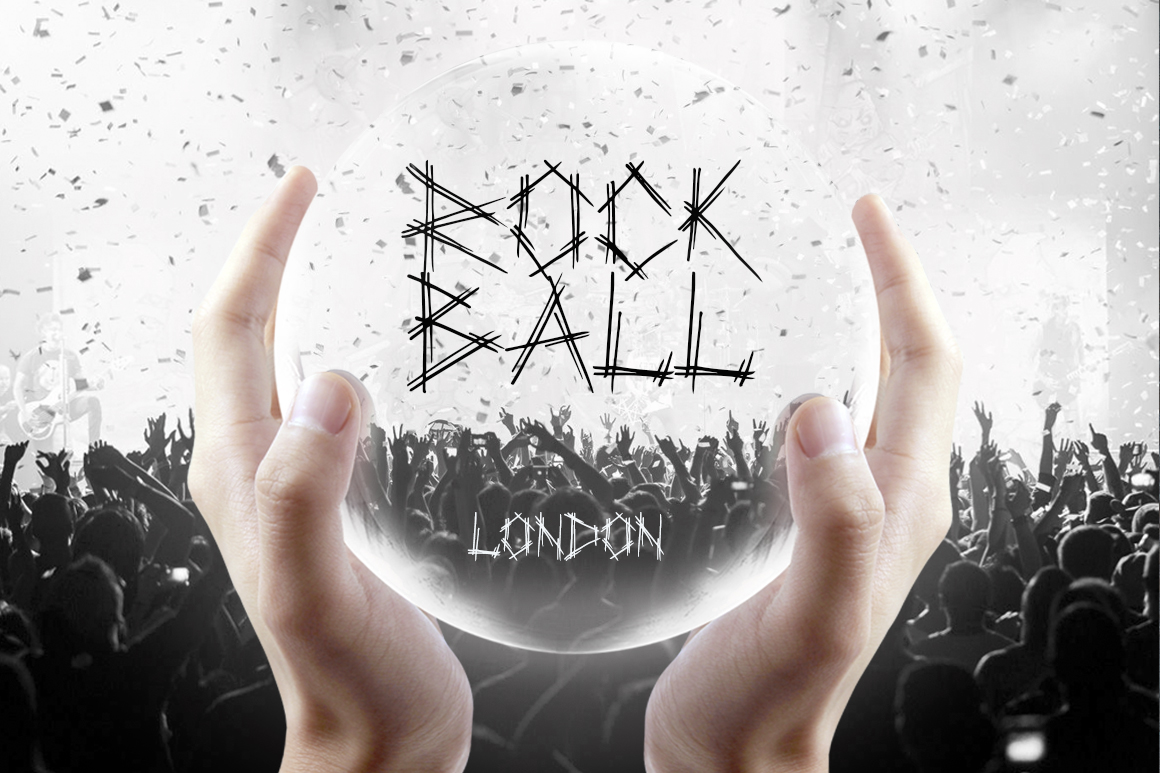
Introducing El Zorro Font: A Unique Handwritten Style
Are you a designer or crafter looking for a distinctive font to add a personal touch to your projects? Look no further than El Zorro Font, a beautiful handwritten font that consists of thin lines, giving it a delicate and elegant appearance. In this article, we’ll take a closer look at El Zorro Font, its features, and how you can use it to elevate your designs.
What is El Zorro Font?
El Zorro Font is a handwritten font that consists of thin lines, creating a unique and eye-catching visual effect. Every letter in the font is made up of multiple thin pen strokes, giving it a distinctive and artistic look. The font’s design is inspired by traditional handwriting, but with a modern twist that makes it perfect for a wide range of applications.
Key Features of El Zorro Font
- Handwritten style: El Zorro Font has a natural, handwritten look that adds a personal touch to any design.
- Thin lines: The font’s thin lines create a delicate and elegant appearance, making it perfect for designs that require a subtle touch.
- Multi-stroke letters: Each letter in the font consists of multiple thin pen strokes, giving it a unique and artistic look.
- Versatile: El Zorro Font can be used for a wide range of applications, from digital designs to print projects.
Uses of El Zorro Font
El Zorro Font is a versatile font that can be used for various design projects, including:
- Digital designs: Use El Zorro Font to create stunning digital designs, such as social media graphics, blog posts, and website headers.
- Print projects: The font is perfect for print projects, including business cards, brochures, and posters.
- Crafting: El Zorro Font can be used for crafting projects, such as making cards, scrapbooking, and journaling.
- Branding: Use the font to create a unique brand identity for your business or personal project.
Tips for Using El Zorro Font
Here are some tips for using El Zorro Font effectively in your designs:
- Pair with bold fonts: Pair El Zorro Font with bold fonts to create a striking contrast and add visual interest to your design.
- Use for headings: Use El Zorro Font for headings and titles to add a touch of elegance and sophistication.
- Keep it simple: Don’t overcomplicate your design – keep it simple and let El Zorro Font take center stage.
El Zorro Font is a unique and beautiful handwritten font that can add a personal touch to your designs. With its thin lines and multi-stroke letters, it’s perfect for designers and crafters looking for a distinctive font to elevate their projects. Whether you’re working on digital designs, print projects, or crafting, El Zorro Font is a versatile font that can help you create stunning designs. So why not give it a try and see how it can enhance your next project?